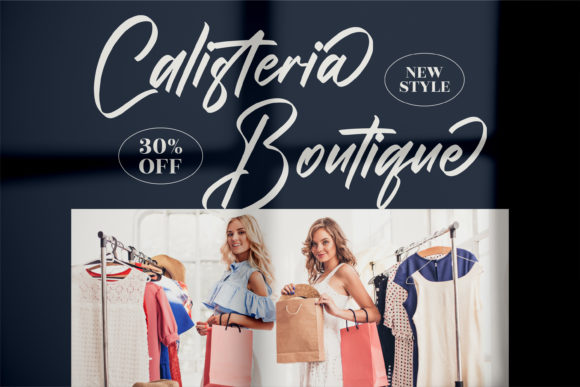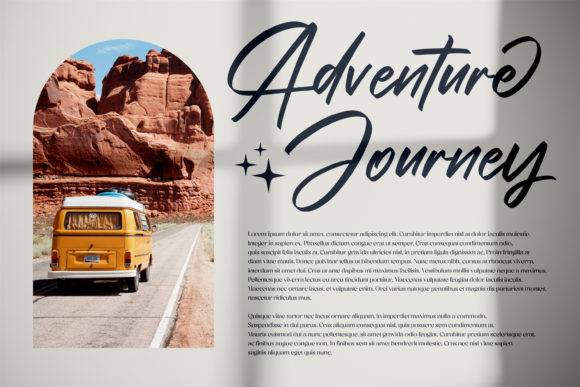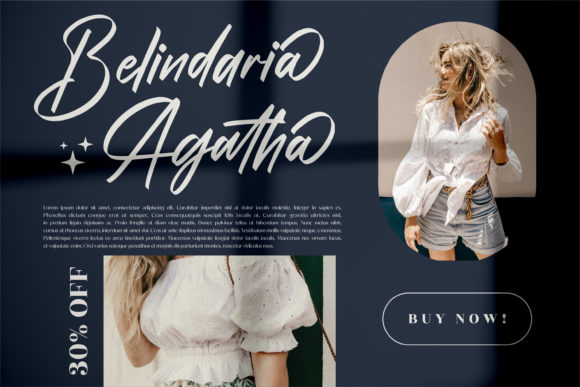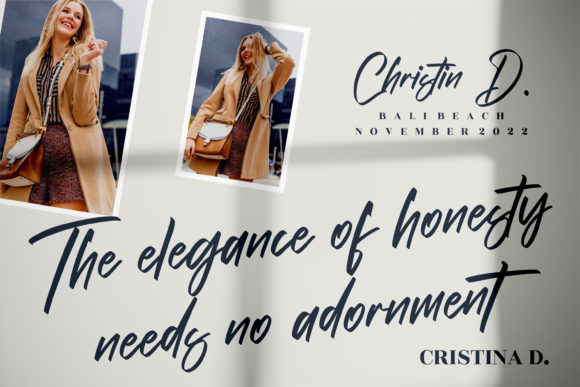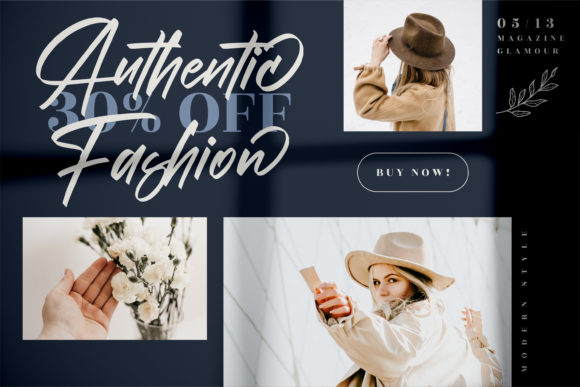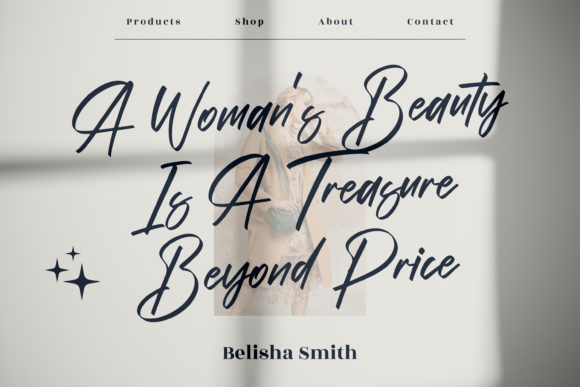
Introducing Alishakey Font: Elevate Your Designs with Elegance and Sophistication
In the world of typography, a font can make or break the aesthetic appeal of a design. For crafters, designers, and artists, finding the perfect font that embodies elegance and class can be a daunting task. However, if you’re looking for a lovely and delicate script font that exudes refinement, look no further than Alishakey Font.
What is Alishakey Font?
Alishakey is a beautifully crafted script font that is designed to add a touch of sophistication to your designs. With its delicate strokes and elegant curves, this font is perfect for those who need a refreshing and stunning look to their creative projects. Whether you’re working on a logo, branding materials, or digital content, Alishakey Font is sure to impress.
Key Features of Alishakey Font
- PUA Encoded: Alishakey Font is PUA (Private Use Area) encoded, which means you can easily access all the glyphs and swashes without any hassle. This feature makes it simple to use and incorporate into your designs.
- Elegant and Delicate: The font’s script style is both lovely and delicate, making it perfect for designs that require a touch of class and sophistication.
- Refreshing Look: Alishakey Font is designed to provide a refreshing look to your designs, setting it apart from more traditional fonts.
- Easy to Use: With its PUA encoding, you can easily access all the characters, glyphs, and swashes, making it simple to incorporate into your workflow.
Who Can Benefit from Alishakey Font?
Alishakey Font is perfect for a variety of designers and crafters, including:
- Graphic Designers: If you’re working on branding materials, logos, or digital content, Alishakey Font can add a touch of elegance and sophistication to your designs.
- Crafters: Whether you’re creating handmade cards, scrapbooking, or other paper crafts, Alishakey Font can add a beautiful and delicate touch to your projects.
- Digital Artists: If you’re creating digital art, illustrations, or graphics, Alishakey Font can be used to add text and typography to your work.
- Use it for Headings and Titles: Alishakey Font is perfect for use in headings and titles, adding a touch of elegance and sophistication to your designs.